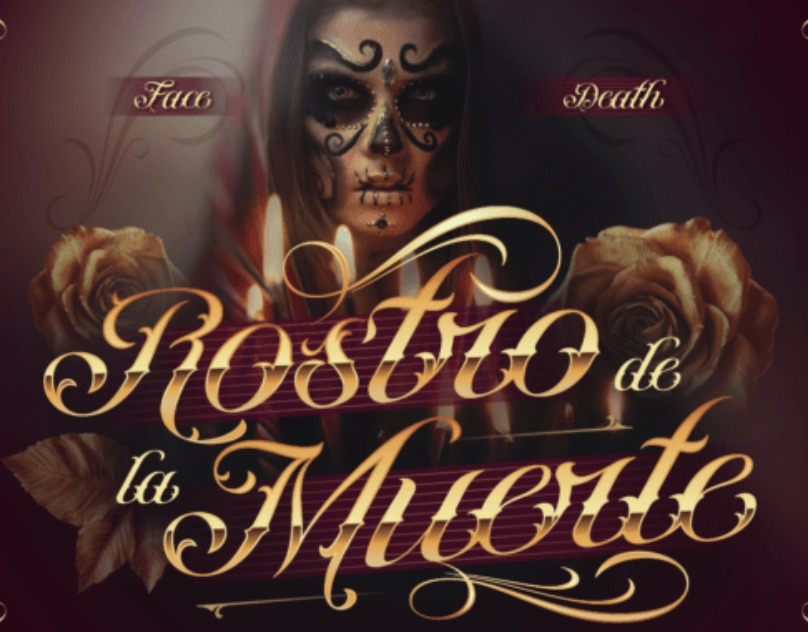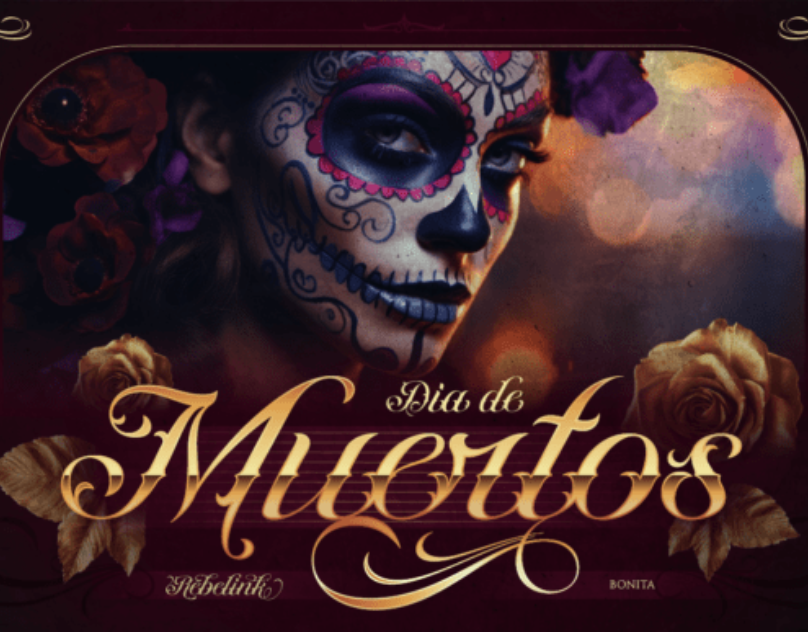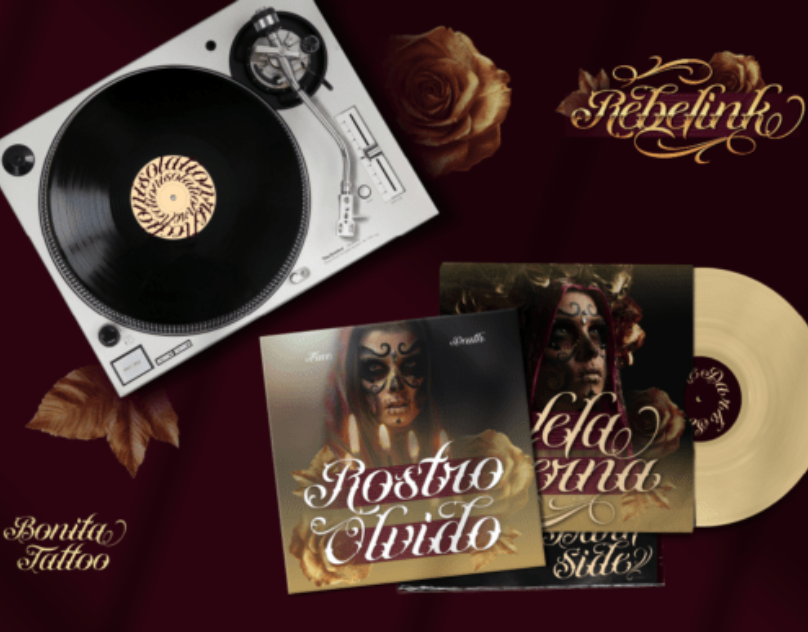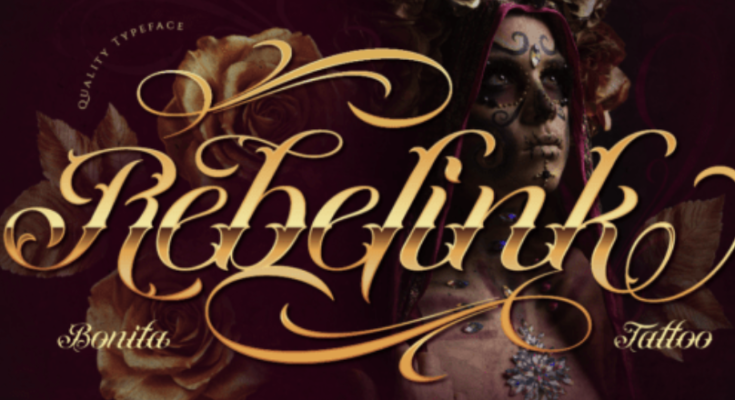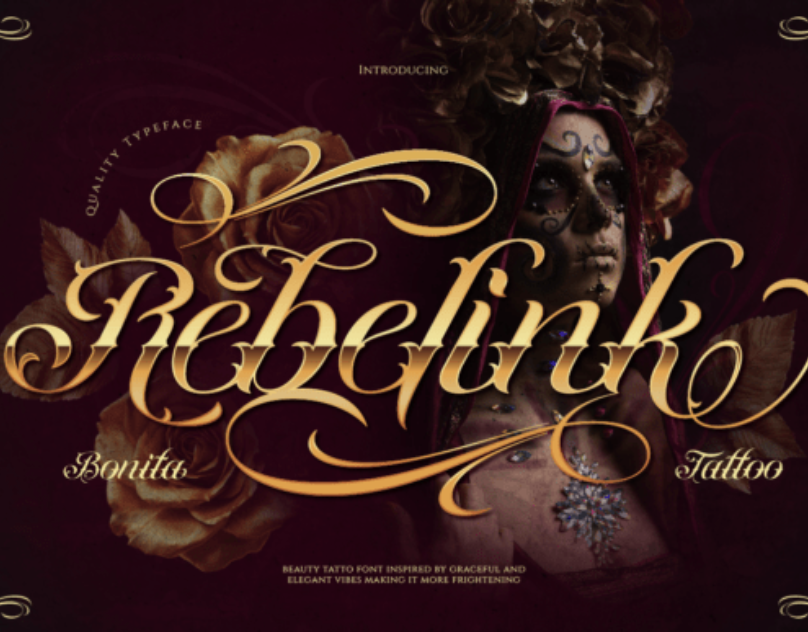
Rebelink: A 1,000-Word Deep Dive into a Script Tattoo Display Typeface
1. Introduction: Where Typography Meets Rebellion
Rebelink is a meticulously crafted script tattoo font, masterfully blending baroque-inspired swashes, blackletter flourishes, and theatrical script elements to create an expressive and bold visual voice. Its letterforms convey a sense of both elegance and edge—a duality that resonates in design spheres like tattoo branding, metal and Latin rap album art, and other gothic or rebellious aesthetics.
2. Origins & Designer Intent
Created by Burntilldead Studio around June 25, 2025, Rebelink is designed for display contexts where dramatic stylistic expression is essential. Influenced by traditional tattoo scripts and ornate typographic revivalism, it brings theatrical elegance and visual soul to every glyph.
3. Stylistic Hallmarks
Rebelink mesmerizes through several defining traits:
Bold, flowing script with stylized blackletter influences: The design melds fluid cursive expressions with gothic weight and attitude.
Sharp stroke contrast and dramatic swashes: These flamboyant elements amplify its theatrical tone, making it ideal for impactful display.
Baroque flourish complexity: Intricate embellishments add depth, artistry, and an old-world aura.
Rich OpenType features: Includes uppercase, lowercase, numerals, punctuation, alternates, ligatures, and multilingual support for complete typographic flexibility.
5. Projected Use Cases
Rebelink shines in settings that demand aesthetic bravado:
Tattoo Studio Branding: Its visual language echoes traditional artistry, perfect for shop logos or promotional materials.
Album Covers & Band Identity: Especially suited to metal, rap, and Latin genres—projects rooted in rebellion and theatrical dramatism.
Merchandising + Apparel: Branding for vintage-inspired or edgy merch.
Posters, Event Graphics, Decor: A go-to choice for immersive designs with style and swagger.
7. Design Impact & Consumer Resonance
What elevates Rebelink is not just its visual flourish but its emotional depth:
Theatrical Expression: The dramatic strokes and swashes evoke performance and presence.
Rebellious Personality: Perfect for brands that aim to stand out from conformity.
Artistic Versatility: Works both in darkness and refined glamor.
8. Effective Pairing Suggestions
To balance Rebelink’s visual intensity:
Pair with clean modern serif or sans-serif fonts for easy reading (e.g., Helvetica, Minion).
Use generous whitespace to highlight flourish without compromising clarity.
Apply in limited text contexts—logos, headers, titles—to maximize legibility and impact.
9. Positioning in Typography Trends
As decorative, expressive fonts echo a return to visual richness, Rebelink aligns with current movements celebrating retro aesthetics, gothic renewal, and script resurgence. It distinguishes itself among decorative display typefaces with its baroque script uniqueness and customization depth.
10. Conclusion
Rebelink is a powerful typographic statement—a script tattoo font that fuses gothic drama with baroque artistry. Whether adorning album titles, brand logos, or immersive event graphics, its bold flourishes and historic resonance ensure each application is not just noticed—but felt.